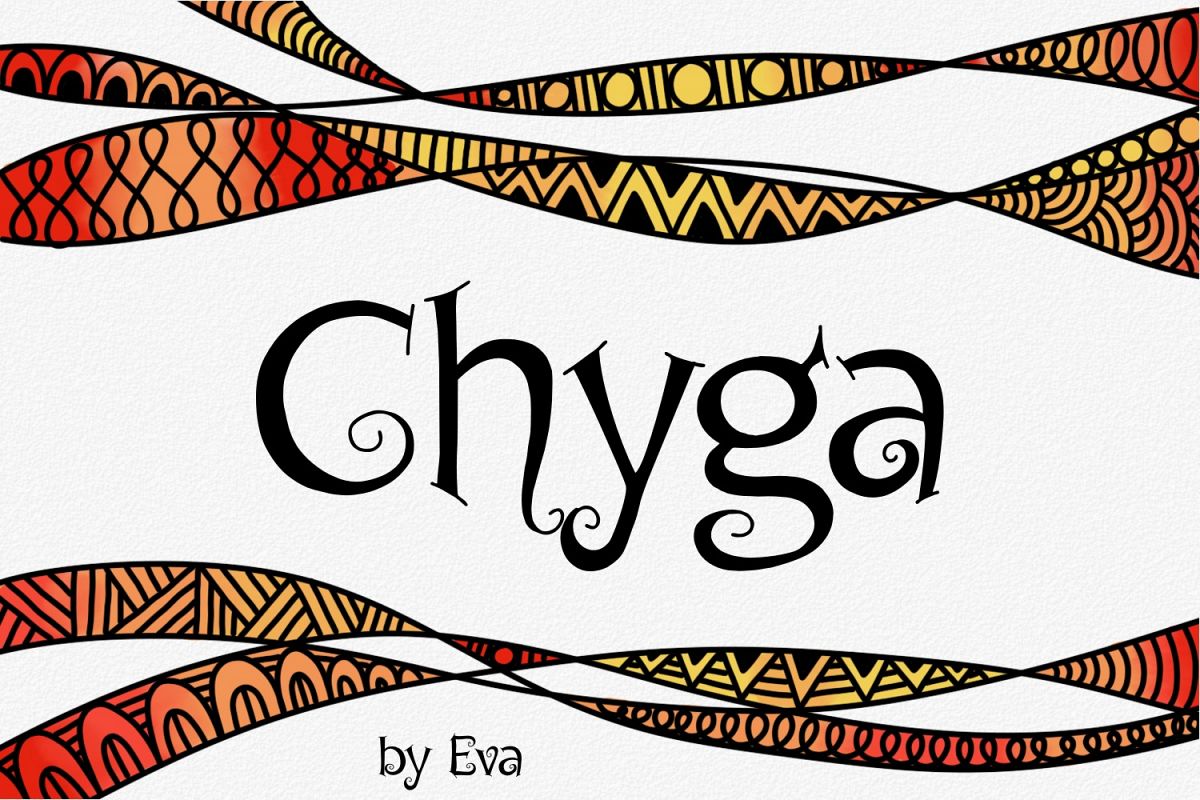
Chyga Font
Chyga
Introducing Chyga handwritten typeface.
Multi purpose use as it has upper cases, lower cases, numbers, punctuations, extended a range of multilingual characters.
Chyga is perfect for titling, flyers, logos, invitations, product packaging, branding projects, homeware designs - or simply as a text overlay to any background image.